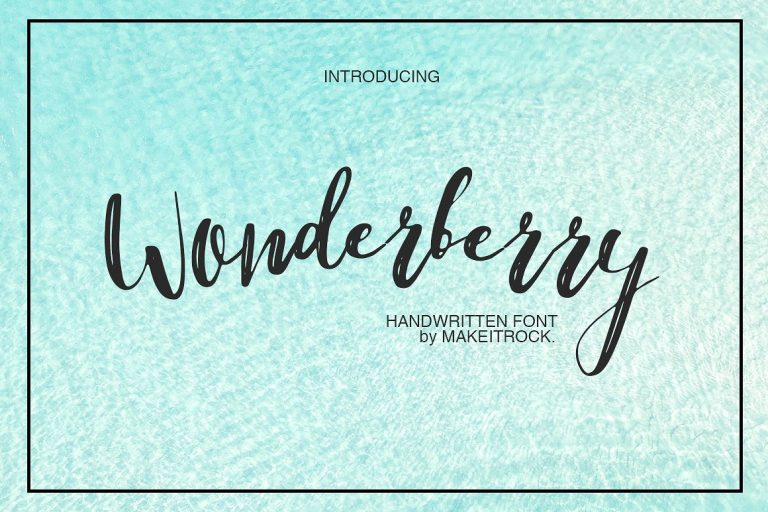
Wonderberry Brush Font
This is a brush style font, designed and shared by Makeitrock. Introducing Wonderberry Font. Very suitable for greeting cards, branding materials, business cards, quotes, posters, and more!This font are perfect for wedding postcard. Or you can create perfect and unique design of your logo, blog, stationery, marketing, magazines and more ?